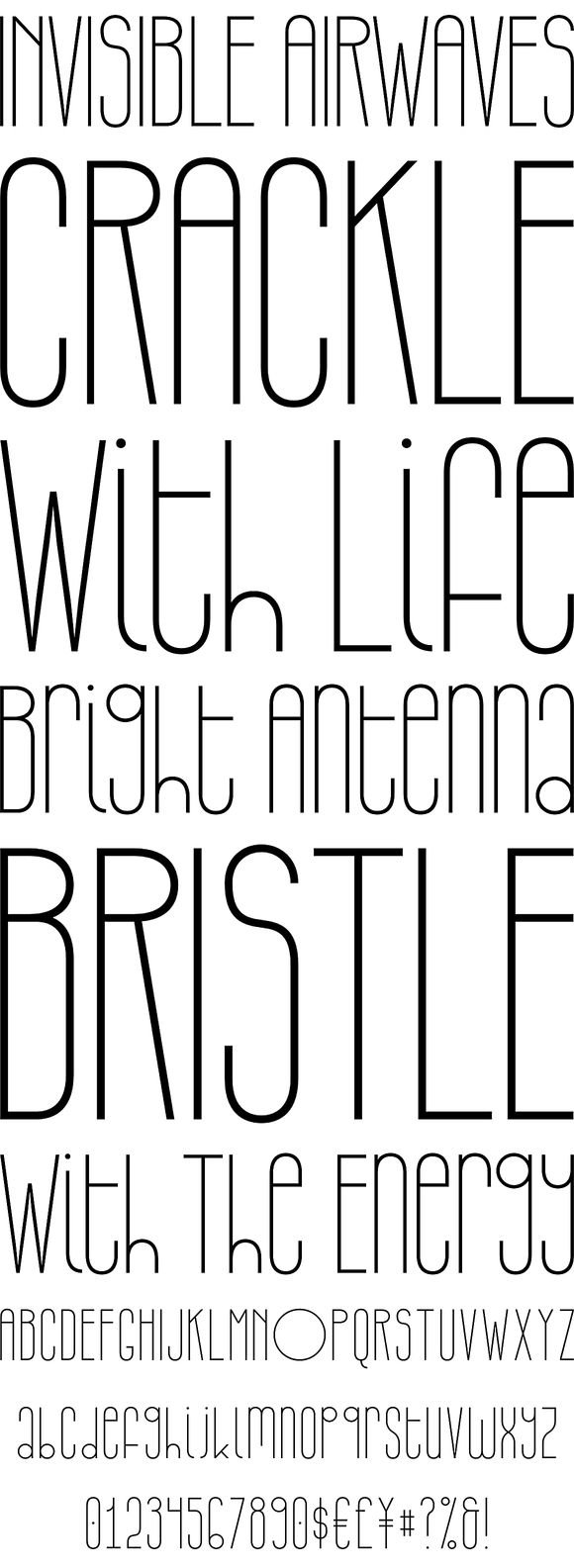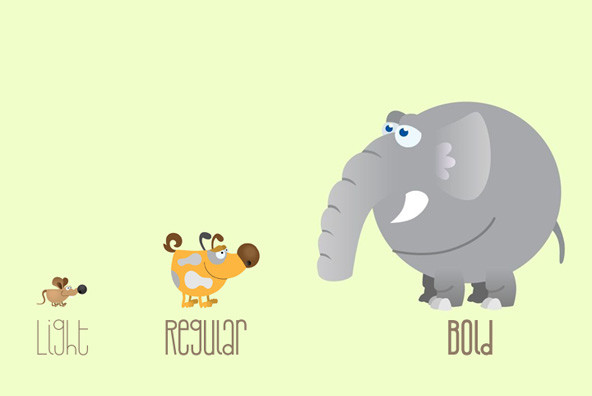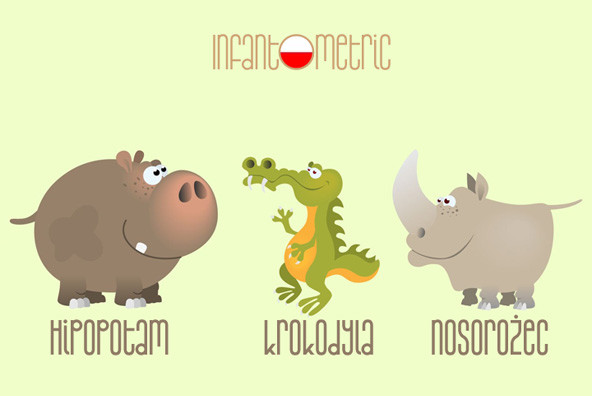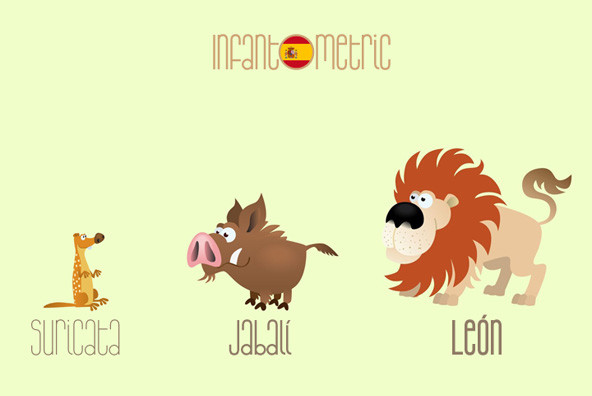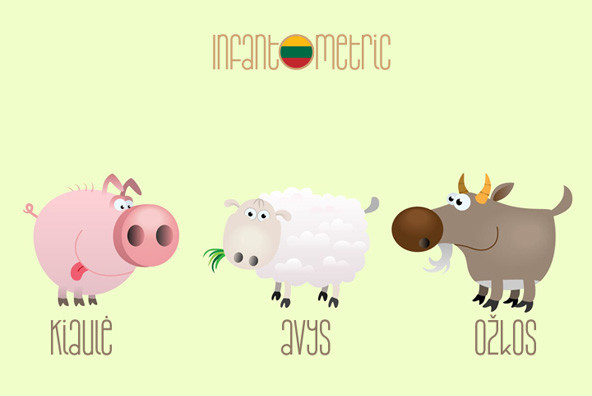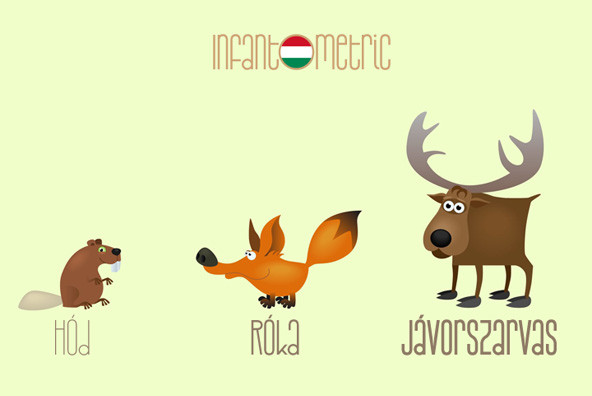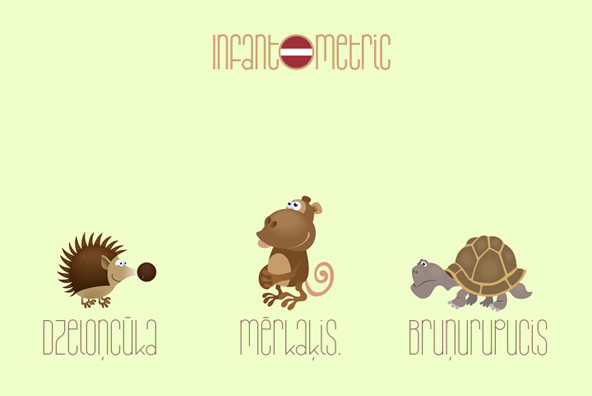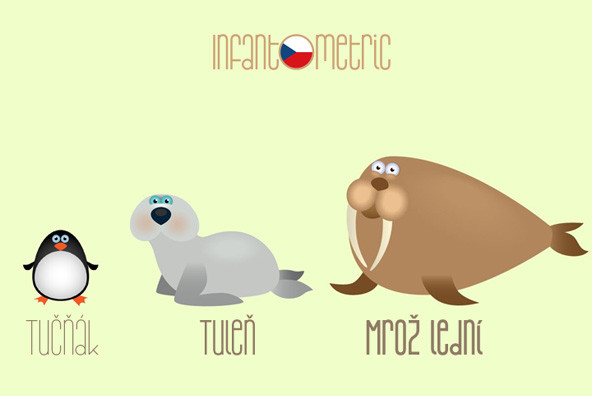
Infantometric Pro
The unicase height, condensed forms and playful mix of geometric construction and childish letterforms gives these fonts a naïve and charming expression. Part infantile, part geometric - it’s Infantometric!